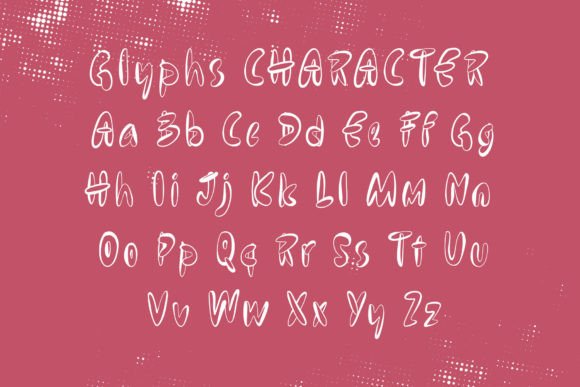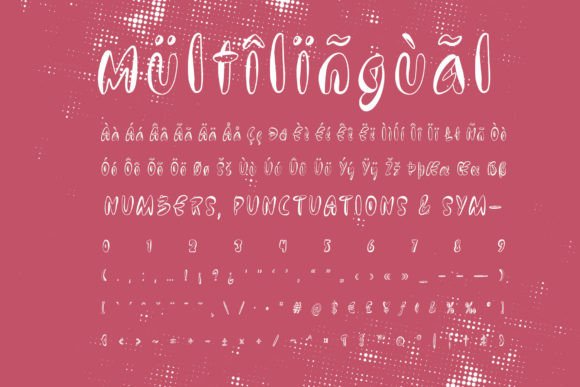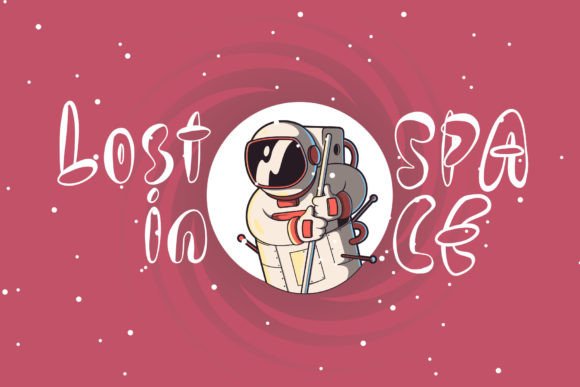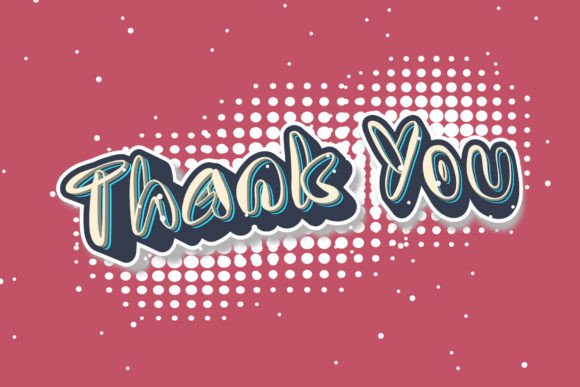
Introduction to Noe Land Font
Noe Land is a font that embodies the theme of freedom.
Designed with boldness and exploration, it represents the spirit of independence and limitless creativity With its unique and expressive characteristics, Noe Land provides a daring and captivating look for various design projects.
Key Features of Noe Land Font